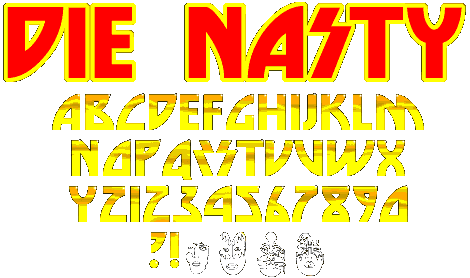
It's the KISS band logo font!.........................................................It's the KISS band logo font!.........................................................It's the KISS band logo font!.........................................................It's the KISS band logo font!.........................................................It's the KISS band logo font!.........................................................Screw you Papadatos!.........................................................